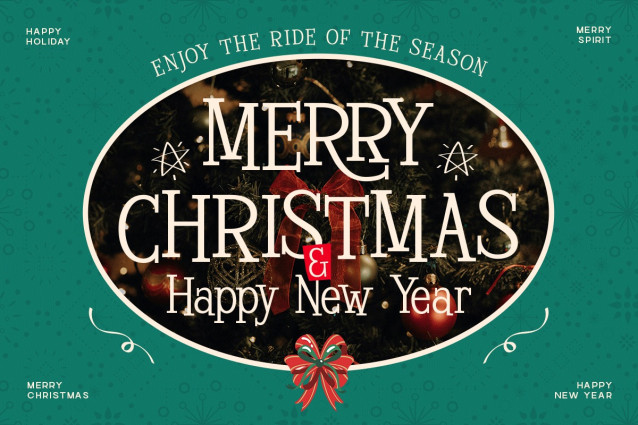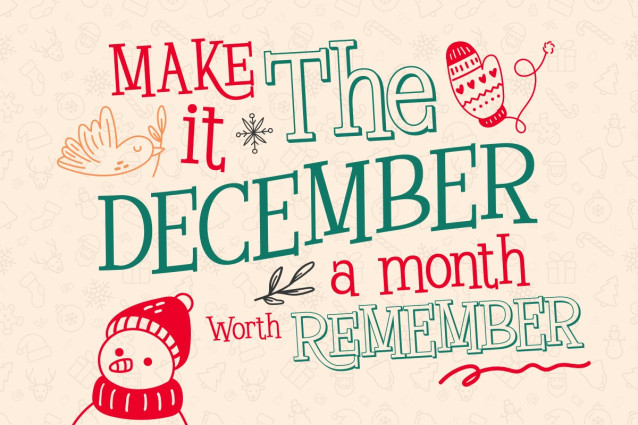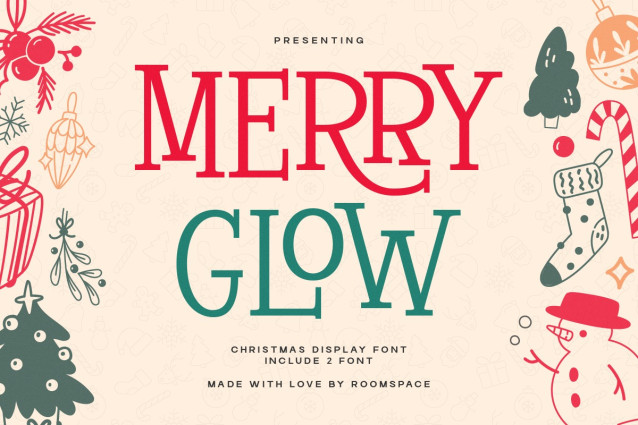
Merry Glow Font is a festive Christmas display serif that brings warm holiday cheer to every design. Featuring 2 fonts a classic serif and a decorative Christmas variant Merry Glow delivers joyful, vintage-inspired character perfect for seasonal branding and cozy creative projects. Crafted with playful curves and cheerful details, this font is ideal for holiday cards, Christmas packaging, invitations, social media designs, and festive merchandise. Merry Glow is festive, joyful, and charming. A Christmas display serif with warm curves, holiday elegance, and playful seasonal character. Vibe cheerful vintage Christmas cozy, nostalgic, and decorative.